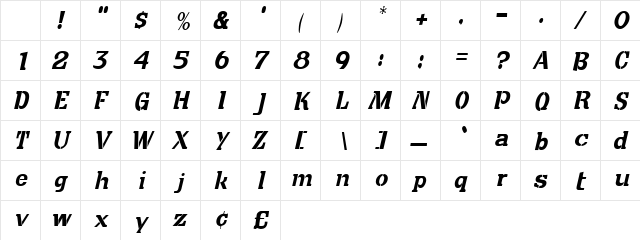
Escudo is a composed and adaptable typeface that performs quietly and consistently across a wide range of design contexts. The slanted form adds forward momentum and visual energy.
Pro Tip: Use Escudo for emphasis, pull quotes, and subheadings where its slanted energy can add rhythm to the layout.